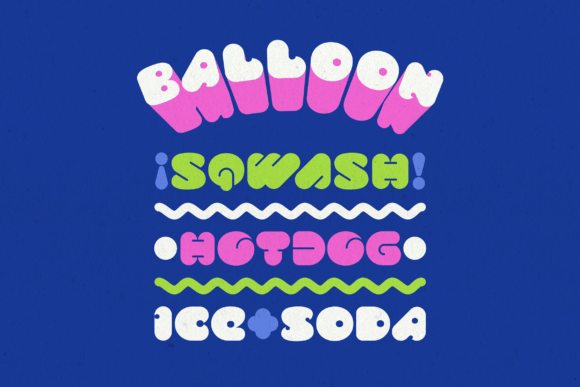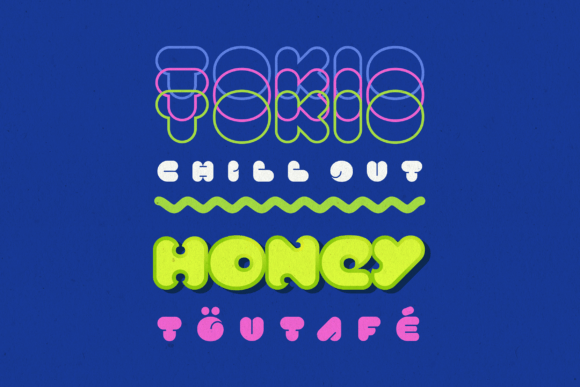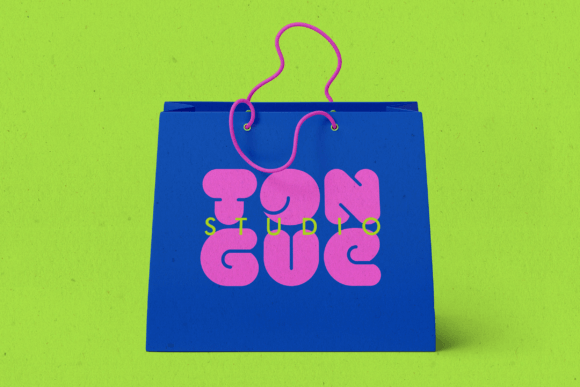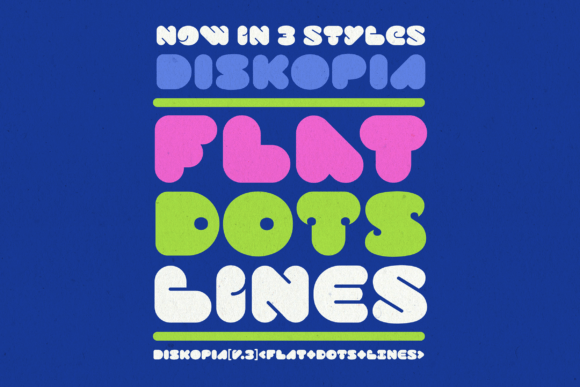
Discover the Funky and Stylish Diskopia Font: Elevate Your Designs with a Cool and Unique Display Font
Are you tired of using the same old fonts in your designs? Look no further! Diskopia Font is here to revolutionize the way you add style and personality to your projects. This cool and unique display font is perfect for designers and crafters who want to make a statement and add a special touch to their work. In this article, we’ll dive into the world of Diskopia Font, exploring its features, benefits, and uses, as well as providing tips and inspiration for incorporating it into your designs.
What is Diskopia Font?
Diskopia Font is a modern, sans-serif display font that boasts a funky and stylish character set. Its distinctive design makes it perfect for headlines, titles, and short texts, adding a touch of playfulness and whimsy to any project. The font’s unique features include rounded edges, irregular shapes, and a dash of creative flair, making it a standout from more traditional fonts.
Key Features of Diskopia Font
- Unique and quirky design: Diskopia Font’s funky and stylish characters are sure to grab attention and add a touch of personality to your designs.
- High-quality and legible: Despite its creative design, Diskopia Font remains highly legible, making it perfect for use in a variety of projects, from digital media to print materials.
- Versatile and adaptable: Diskopia Font can be used in a range of contexts, from bold headlines to short texts, and can be easily paired with other fonts to create a unique visual identity.
- Easily customizable: With its comprehensive character set and range of diacritics, Diskopia Font can be tailored to suit your specific design needs.
Benefits of Using Diskopia Font
So why choose Diskopia Font for your next project? Here are just a few benefits of using this cool and unique display font:
- Add a touch of personality: Diskopia Font’s funky and stylish design allows you to add a dash of creativity and whimsy to your projects, setting them apart from the crowd.
- Stand out from the crowd: With its distinctive design, Diskopia Font is sure to grab attention and make your projects more memorable.
- Perfect for creative projects: Whether you’re working on a branding project, a website, or a craft project, Diskopia Font is the perfect choice for adding a touch of creative flair.
Using Diskopia Font in Your Designs
So how can you incorporate Diskopia Font into your designs? Here are a few tips and ideas to get you started:
- Use it as a headline font: Diskopia Font’s bold and eye-catching design makes it perfect for use in headlines and titles.
- Pair it with other fonts: Experiment with pairing Diskopia Font with other fonts to create a unique visual identity and add depth to your designs.
- Add a pop of color: Use Diskopia Font in a bold, bright color to really make your designs pop.
Inspiration and Examples
Still not sure how to use Diskopia Font in your designs? Here are a few examples and inspiration to get you started:
- Branding and logos: Use Diskopia Font to create a bold and eye-catching logo that really stands out.
- Web design: Add a touch of personality to your website with Diskopia Font, used in headings, titles, and more.
- Crafting and DIY projects: Use Diskopia Font to add a touch of creative flair to your crafting and DIY projects, from signs to cards and more.